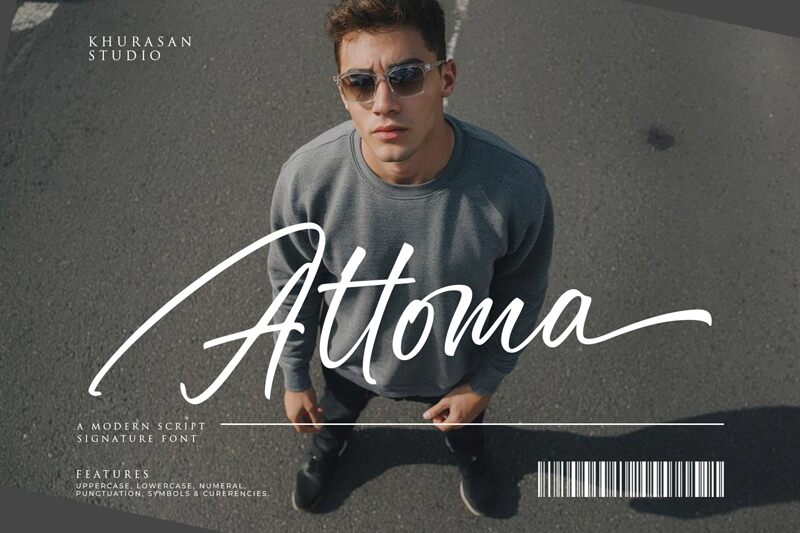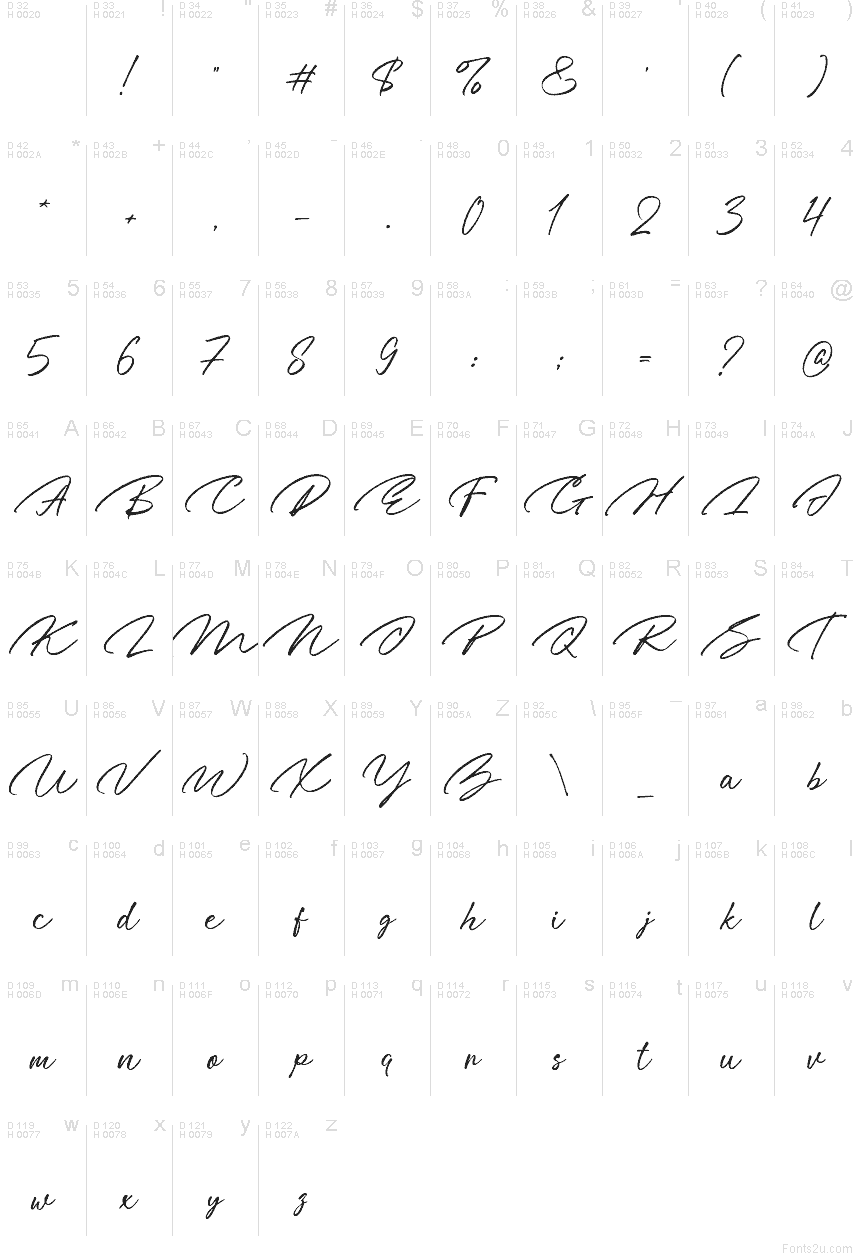
Attoma by Khurasan is a free handwritten script font with a breezy signature feel. The letters sweep in long, confident curves, mixing slim upright strokes with a few broad loops and lightly hooked endings that make the wordmark feel quick, personal, and a little fashion-leaning.
This free font fits branding, boutique packaging, social media graphics, invitation titles, and magazine-style cover lines where you want a human gesture instead of a polished formal script. It also works well for short logo lettering and monograms, since those extended opening and closing strokes give even brief words a sense of motion.
Attoma